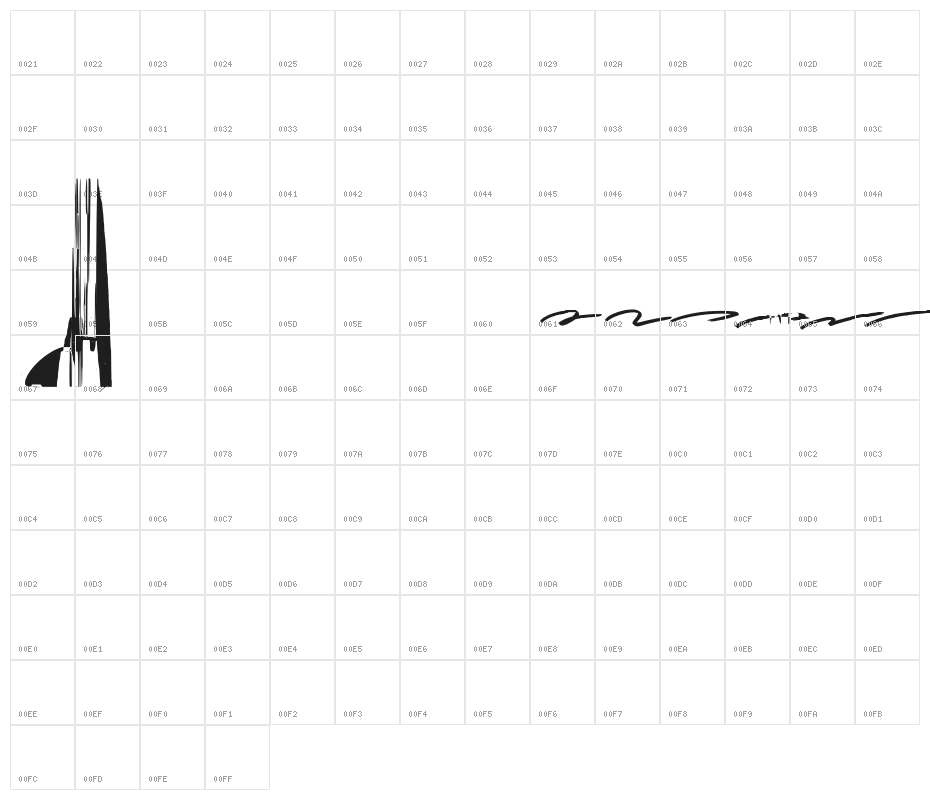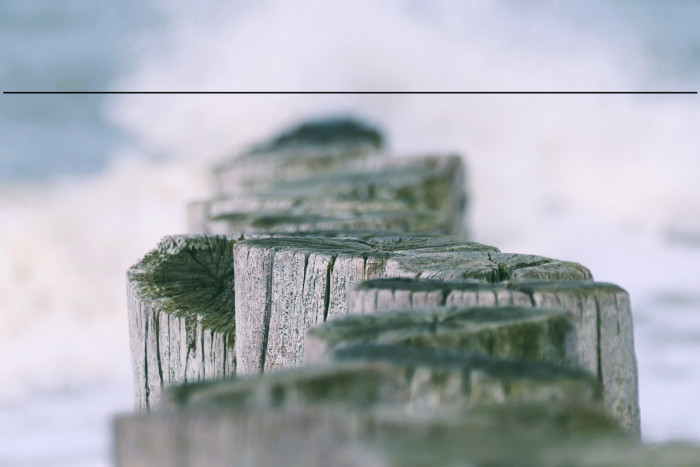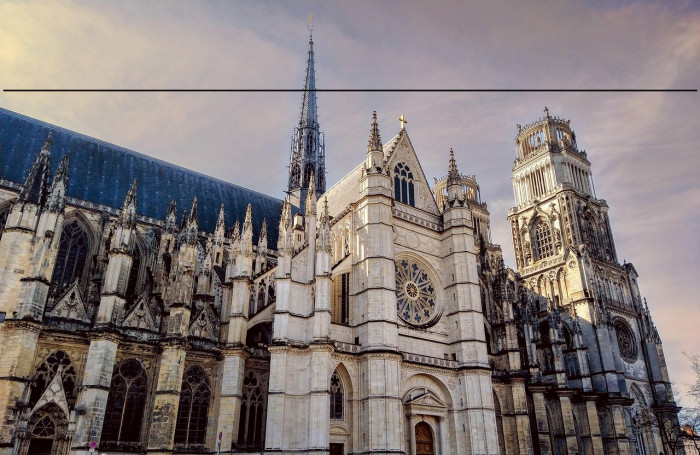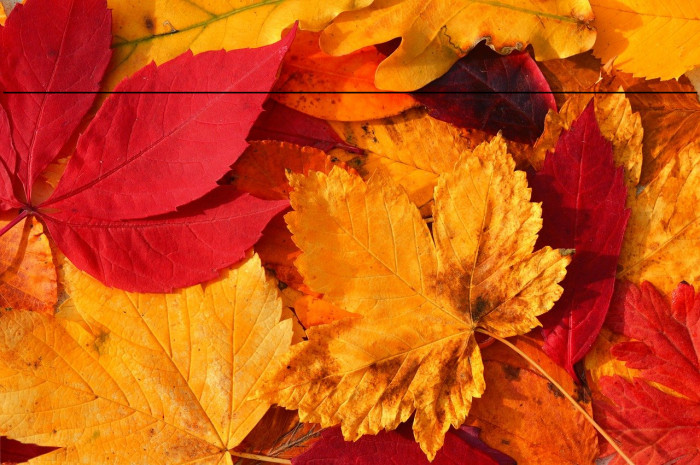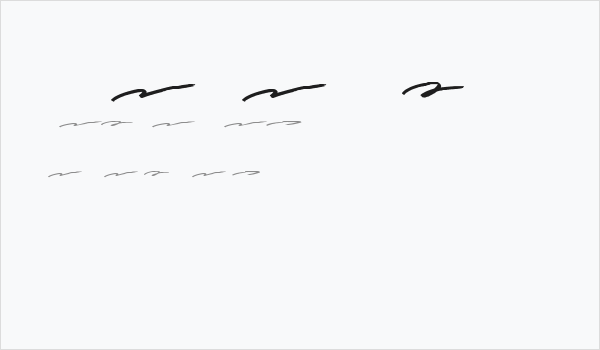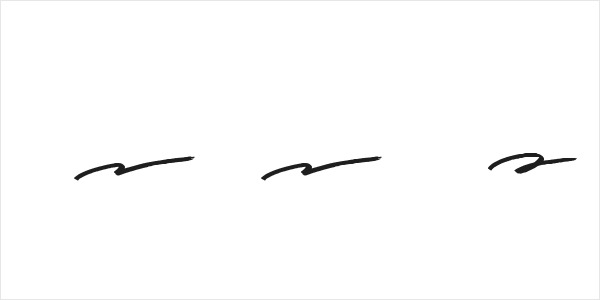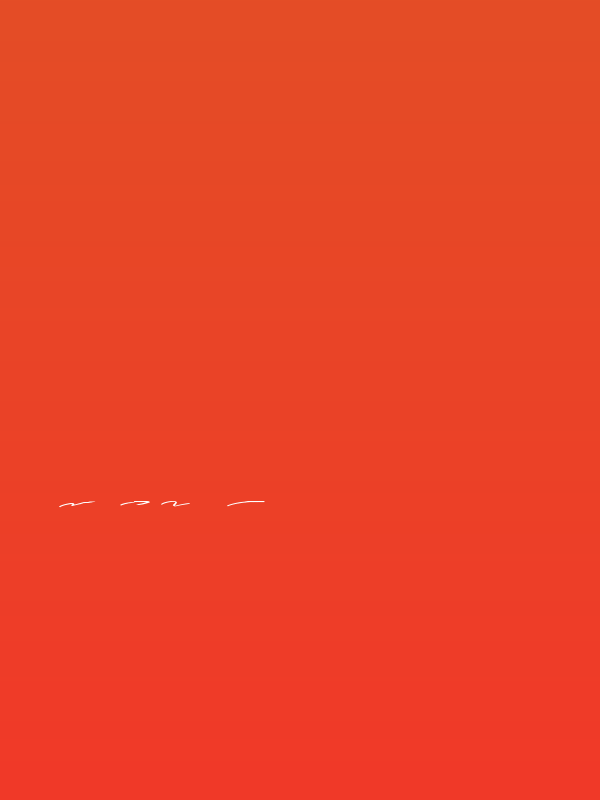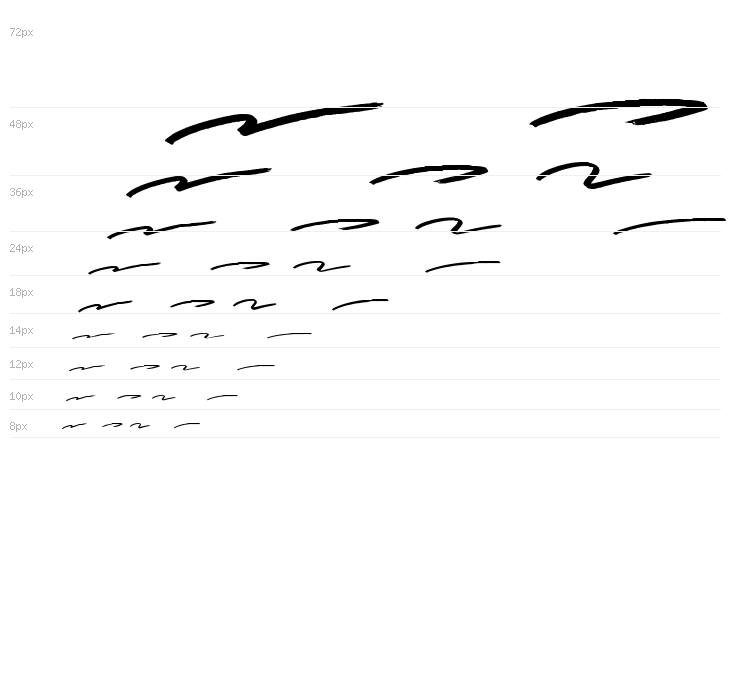
Guttenwell Swash Font
Guttenwell Swash Description
This font features an elegant and flowing script style, characterized by its smooth, continuous strokes and graceful curves. The letters are interconnected, creating a seamless and fluid appearance that mimics the natural motion of handwriting. The overall design is sophisticated and artistic, making it suitable for projects that require a touch of elegance and personal flair. The font's swashes and loops add a decorative element, enhancing its visual appeal and making it ideal for creative and expressive applications.
Overall StyleElegant
Use CaseLogos, Invitations, Decorative text
Proposed ProjectsIdeal for wedding invitations, greeting cards, branding, and logo design where elegance and personal touch are desired.